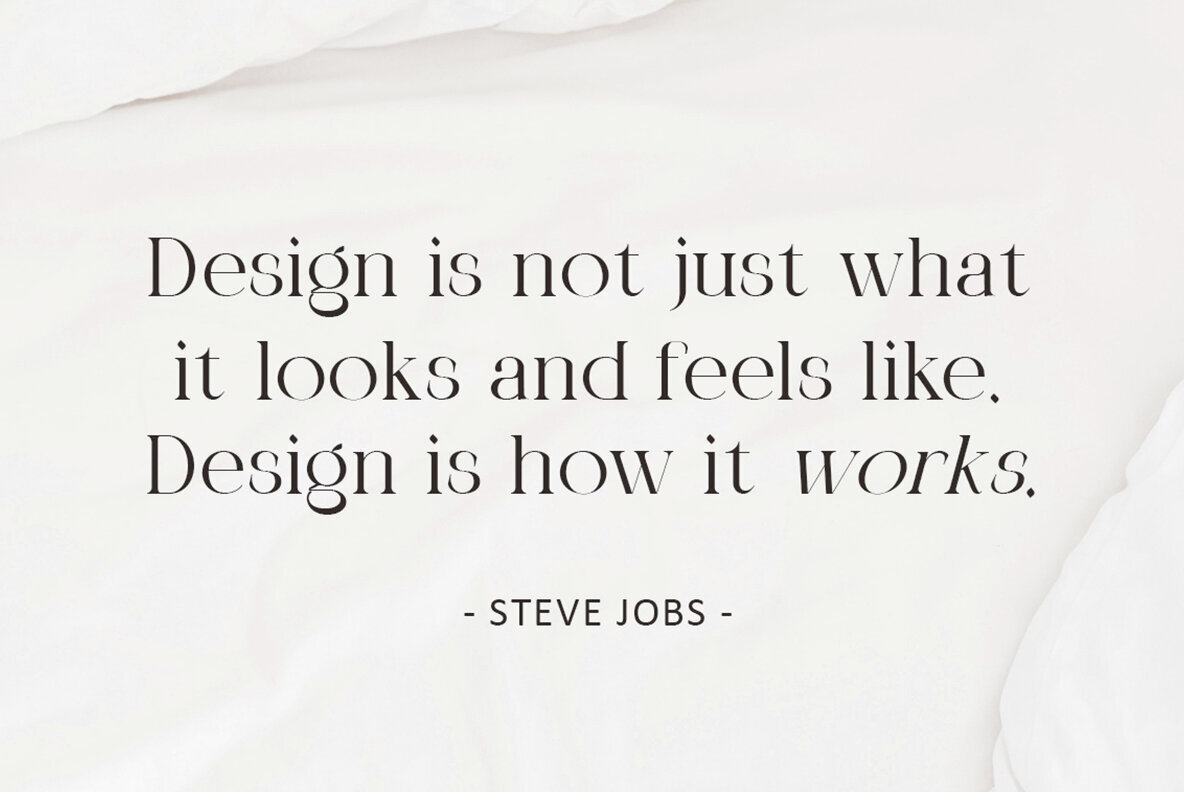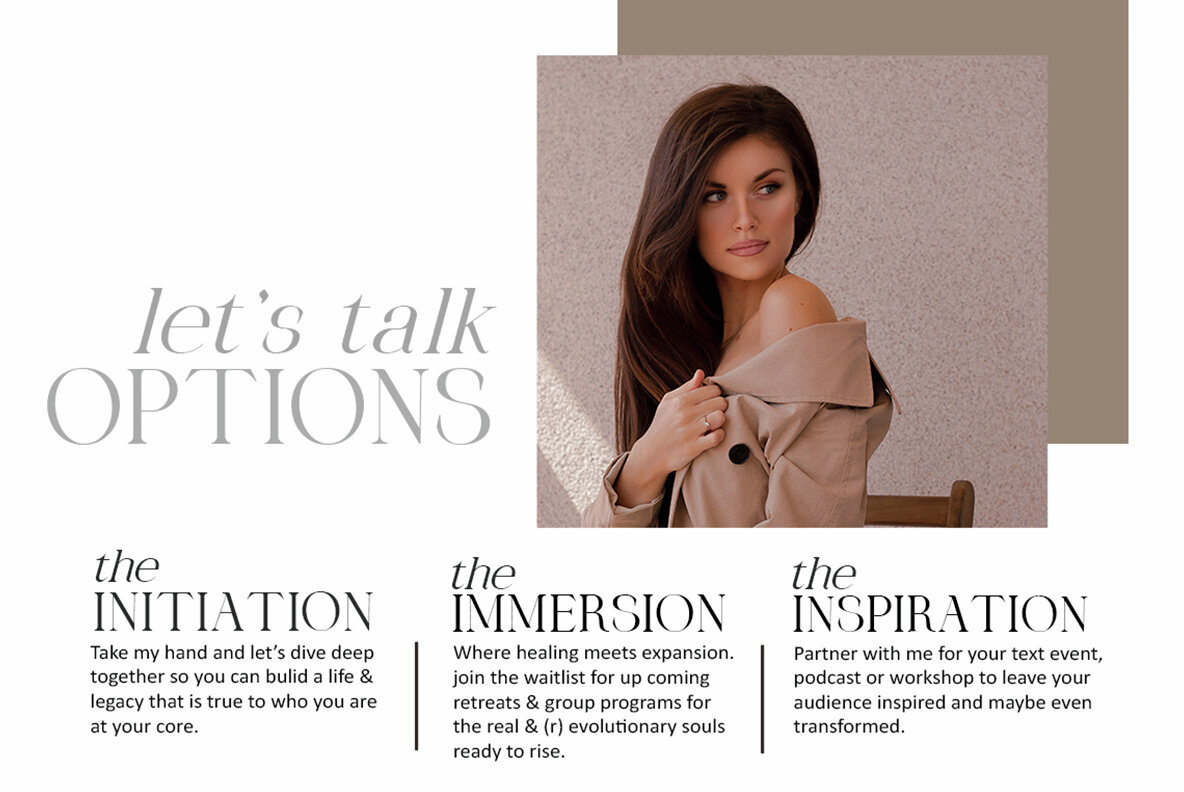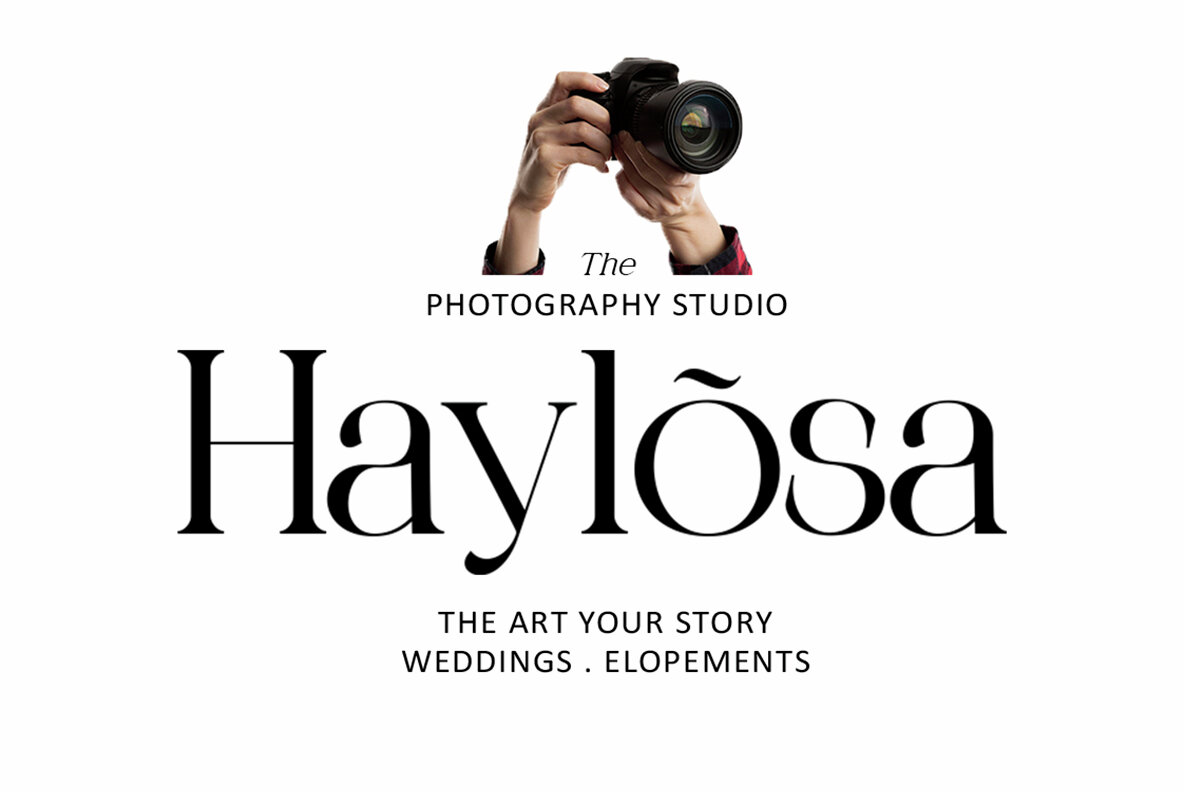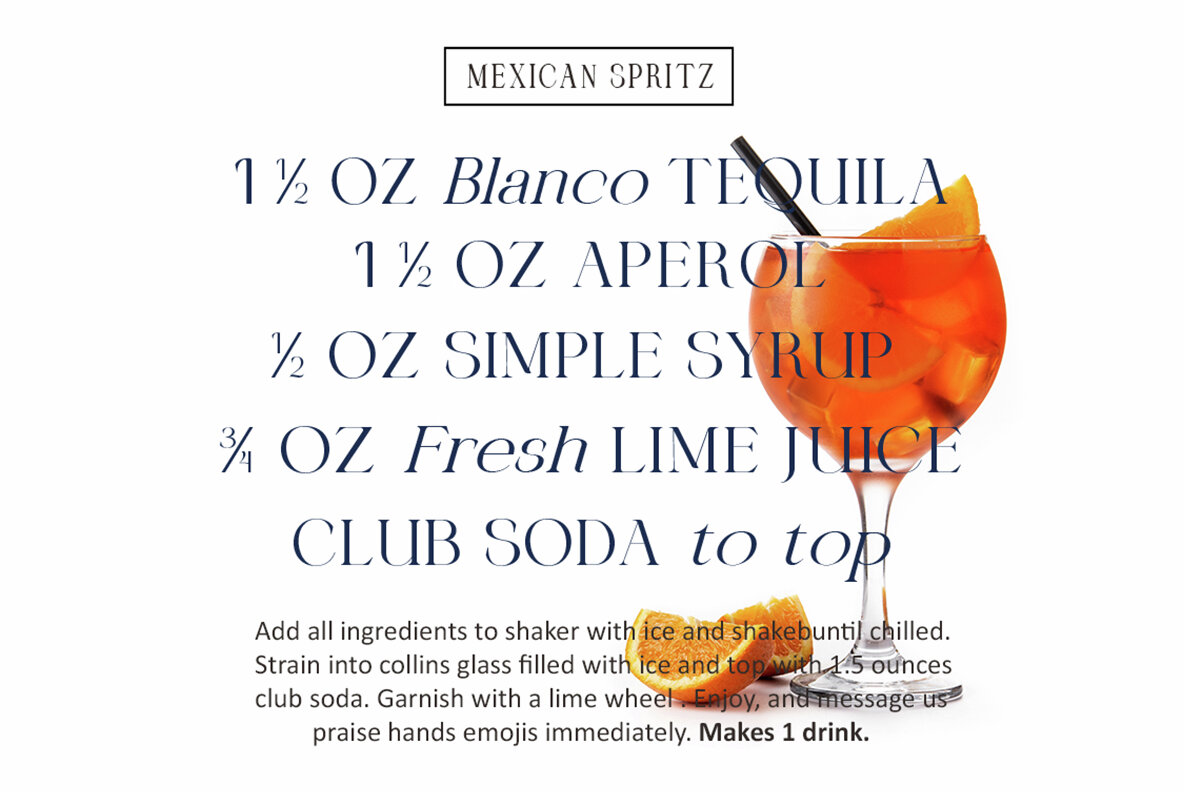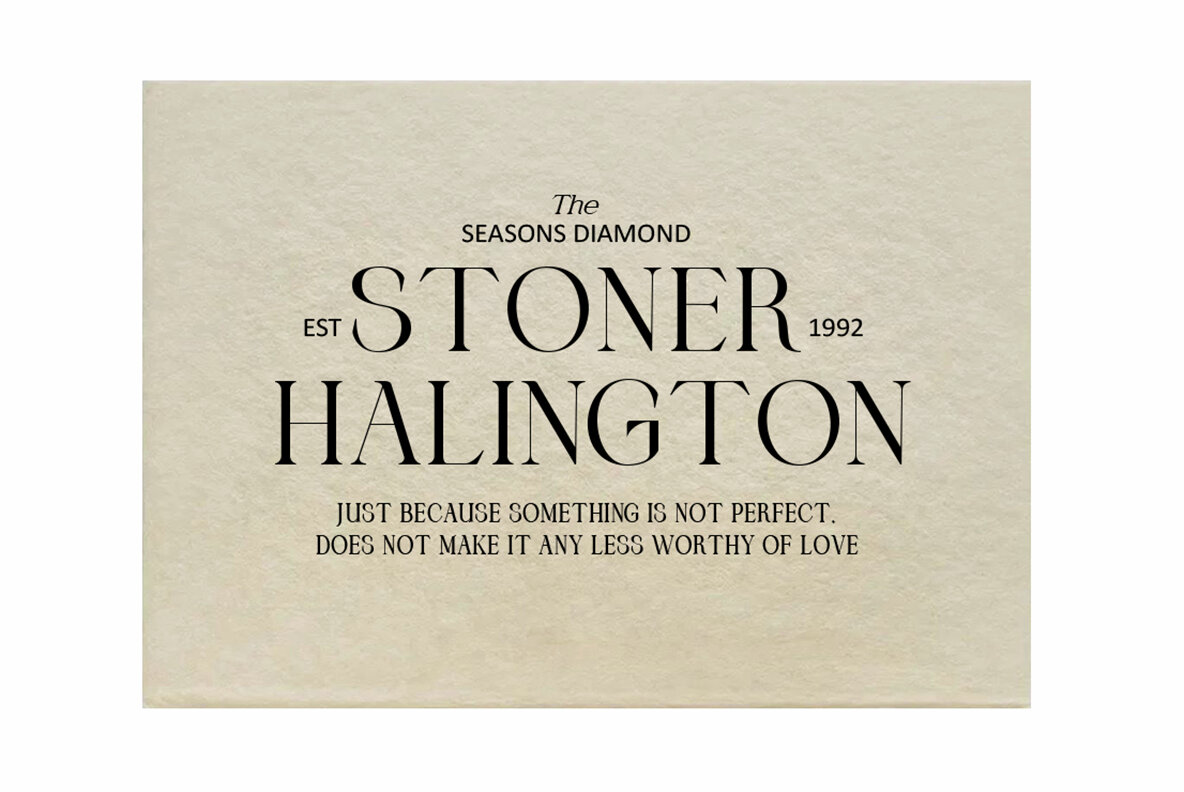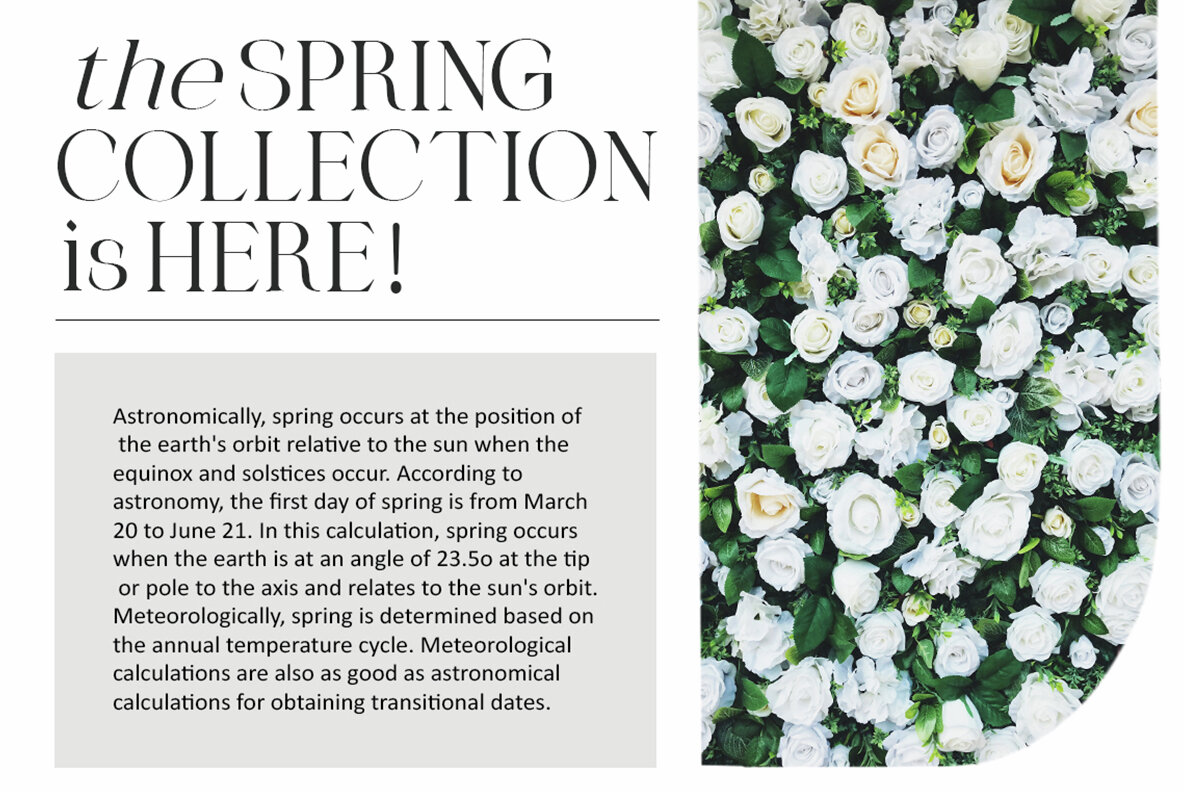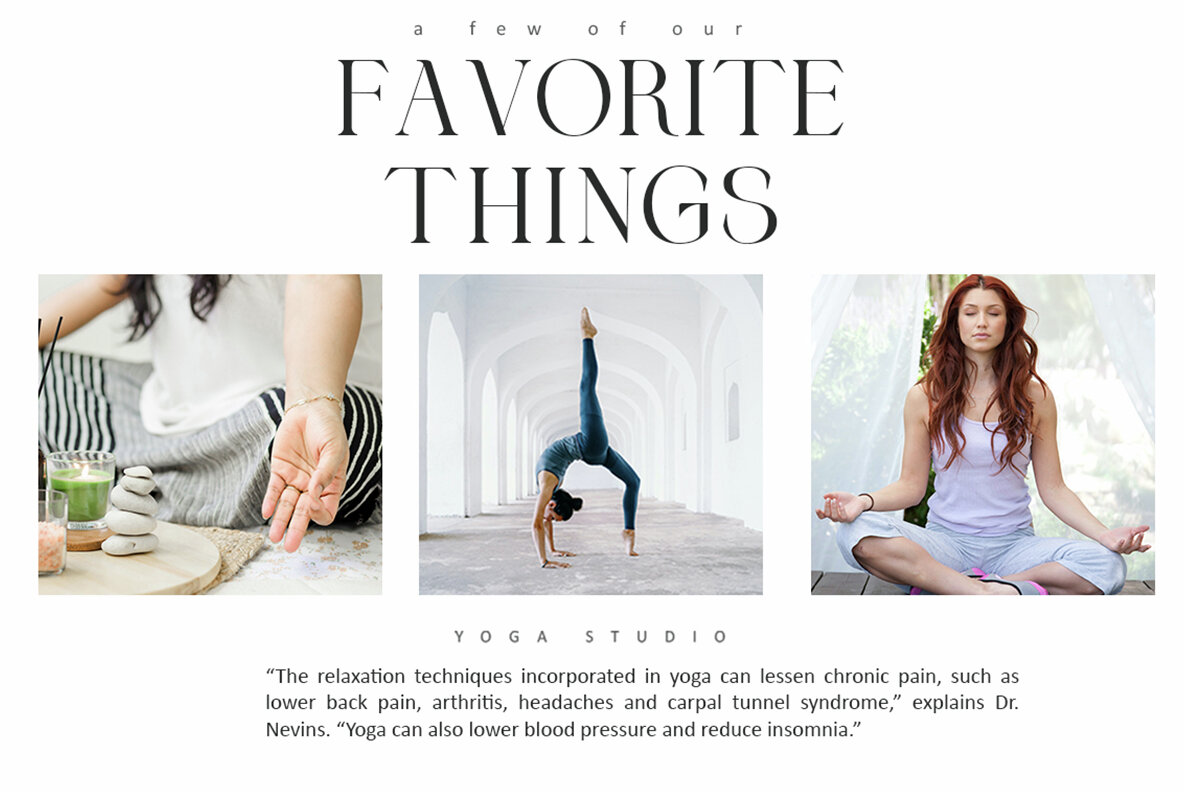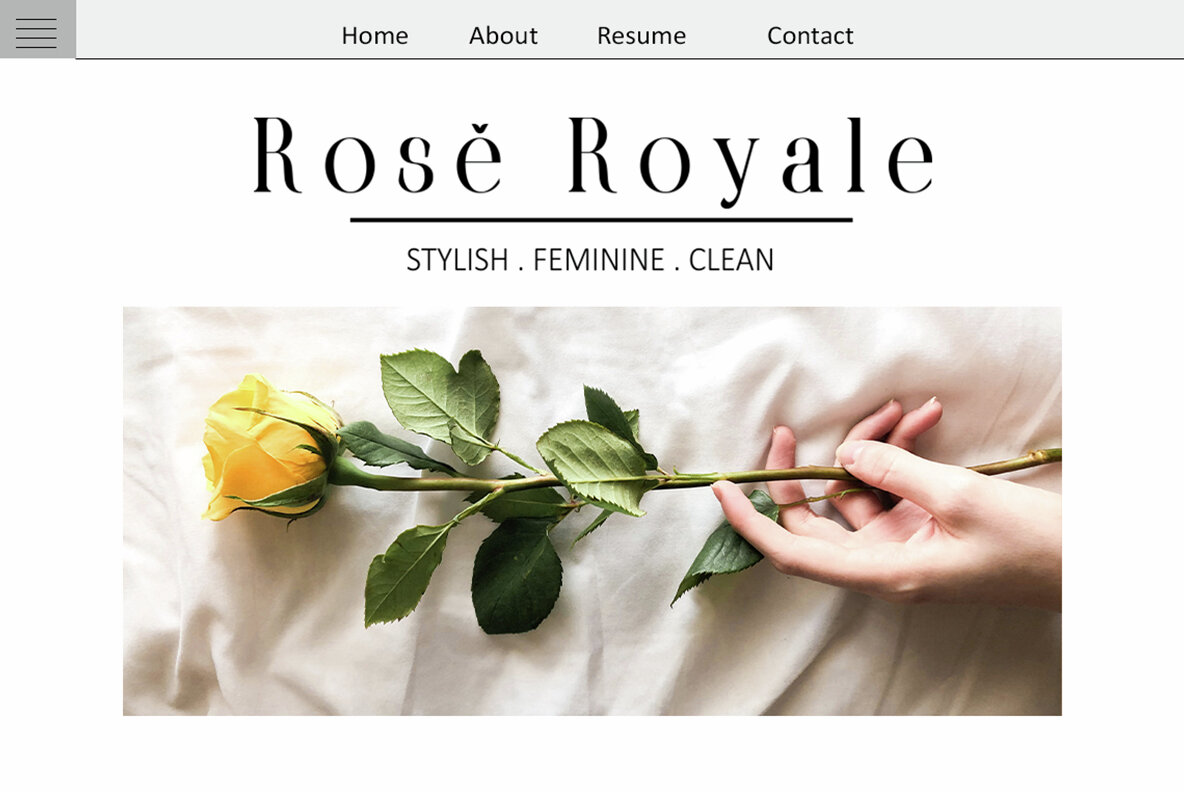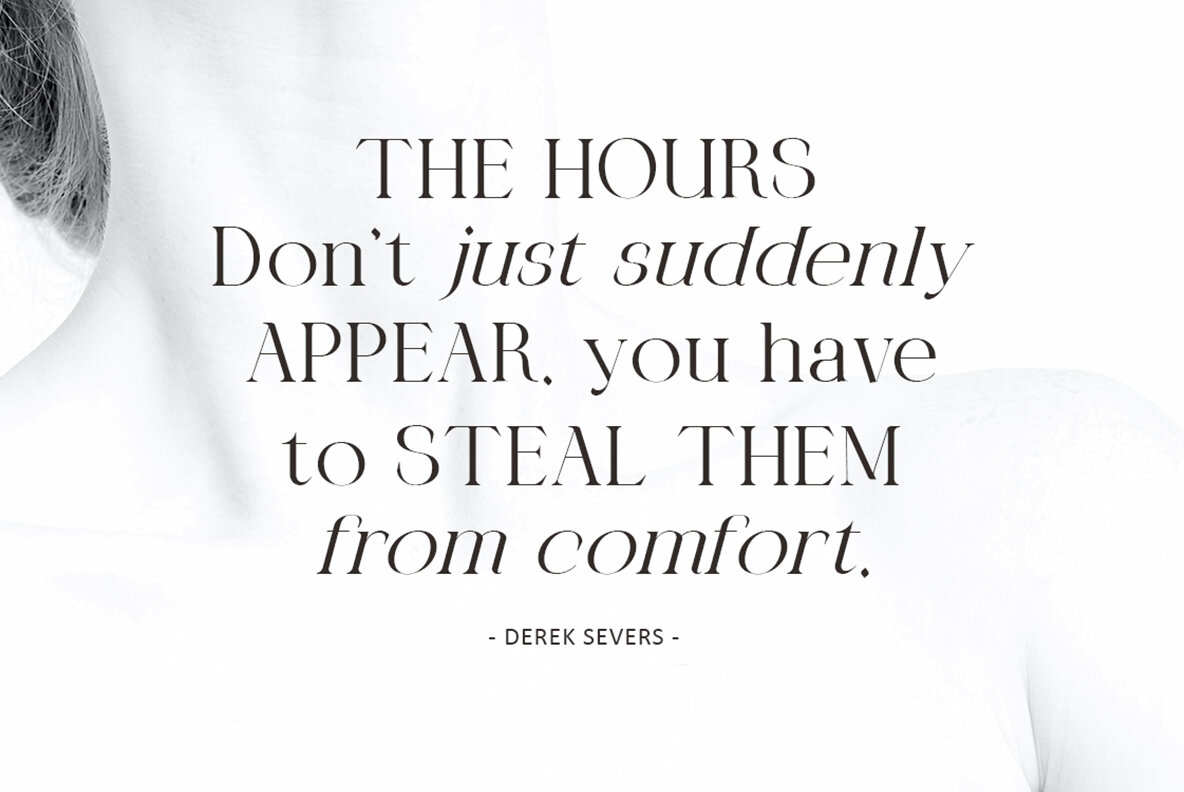
Phoveus Font
Phoveus Modern Serif is a versatile font set designed to add a touch of elegance to your creative projects. This professional serif typeface includes four distinct styles: Regular, Italic, Bold, and Bold Italic, allowing for flexibility in your design work. Phoveus is ideal for a variety of applications, such as blog headers, posters, wedding stationery, t-shirts, book covers, business cards, branding materials, and invitations.
This serif font is equipped with a comprehensive set of features to ensure your designs stand out. It includes a full suite of uppercase and lowercase characters, numerals, and supports multilingual accents, enabling you to craft diverse and inclusive designs. Whether you are creating striking headlines or intricate details, Phoveus Modern Serif provides the tools to bring your vision to life, making it a fantastic choice for any designer's toolkit.